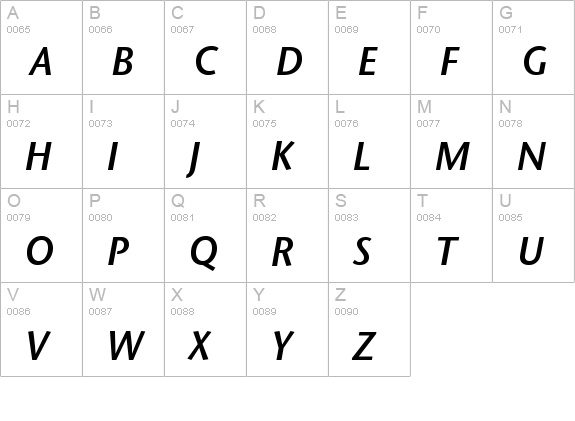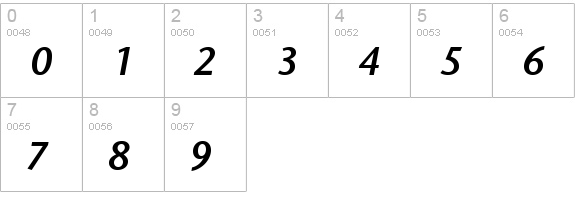
Stone Sans Semi Bold Italic Font Details
Stone Sans Semi Bold Italic is a strong, high-contrast, italic variant in the Stone typeface family \xE2\x80\x94 well suited to headlines, attention-grabbing titles, and strong calls-to-action.
Stone Sans Semi Bold Italic is a modern and versatile typeface that conveys strength and sophistication. With its bold strokes and elegant slant, this font is perfect for conveying a sense of confidence and authority in your design projects. This font is not only visually appealing but also highly legible, making it ideal for a wide range of uses including headlines, branding, packaging, and more. Its semi-bold weight adds a touch of boldness without overpowering the overall design. The best part is that Stone Sans Semi Bold Italic is available for free download at FontsMarket.com. You can easily access this high-quality font and enhance your projects with its professional and polished look. Don't miss out on the opportunity to elevate your designs with this stunning typeface. Download Stone Sans Semi Bold Italic now and see the difference it can make in your creative work.